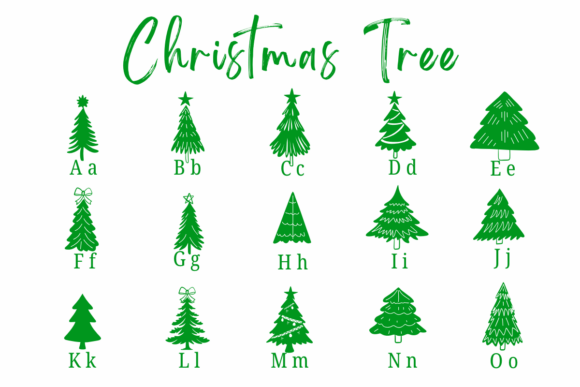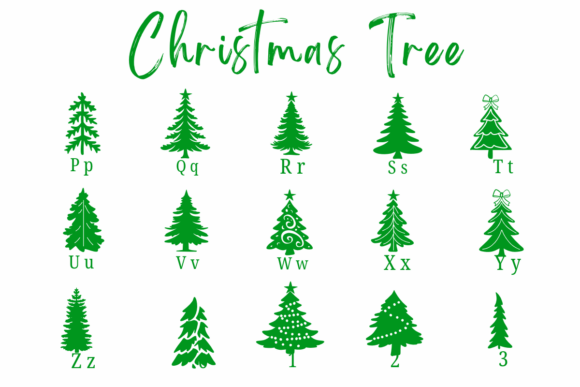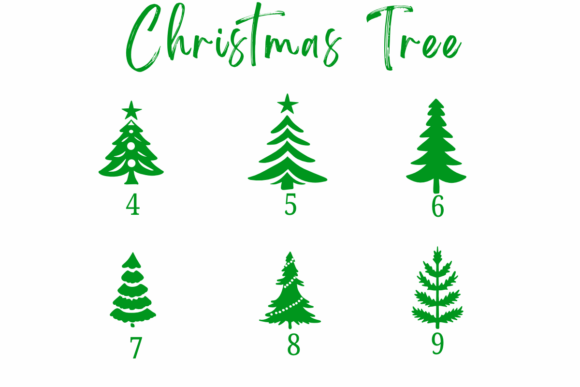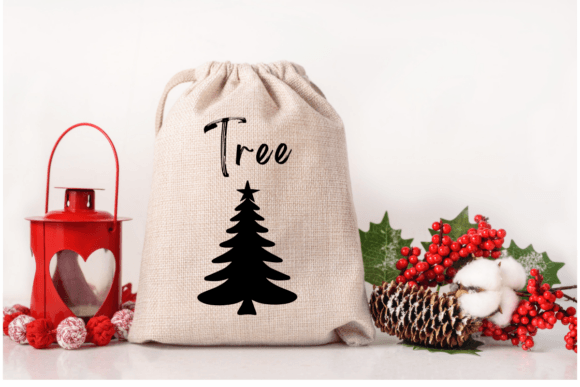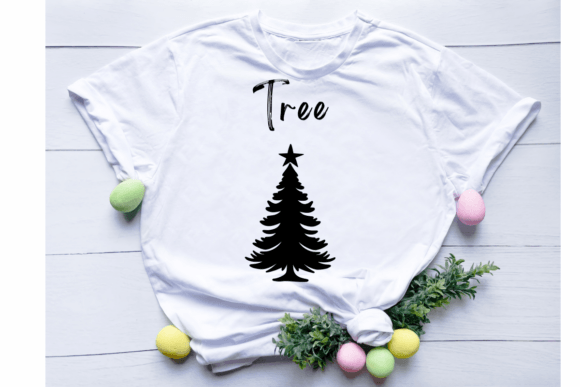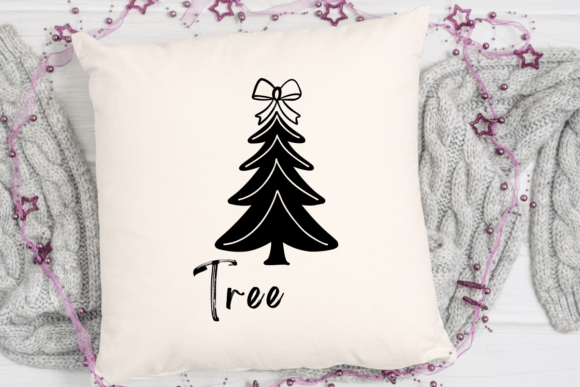
Deck the Halls with Typography: The Magic of Christmas Tree Font
I still remember the first time I stumbled upon a design project that required a festive touch. I was brainstorming ideas for a holiday-themed brochure and wanted to add a whimsical element that would put my readers in the mood for Christmas. That’s when I discovered the charm of Christmas Tree Font – a delightful dingbat font that features adorable symbols of Christmas trees, complete with ornaments and festive details. It was love at first sight!
As a designer, I can attest that Christmas Tree Font is a valuable addition to any typography arsenal. Its cute and decorative symbols allow you to add a holiday touch to your text or designs with ease, making it perfect for projects like greeting cards, social media graphics, or even website headers. With Christmas Tree Font, the possibilities are endless, and the joy is contagious!
Key Features of Christmas Tree Font
- Font Family: Christmas Tree Font is a unique, decorative font that resembles a Christmas tree.
- Unique Characteristics: Features a distinctive, layered design that resembles a Christmas tree, with ornaments and branches that can be customized through various font styles and sizes.
Christmas Tree Font Review
Overall, I think the Christmas Tree Font is a fun and creative addition to any holiday design project. ✨ The font is well-designed and visually appealing, with a clear nod to the classic Christmas tree shape. It’s perfect for adding a touch of festive flair to your designs.
The font is available in a range of weights and styles, which makes it easy to use in different contexts. ✨ The font is also highly customizable, with options for adjusting the size, color, and spacing of the text.
However, there are a few limitations to consider. ⚠️ The font may not be suitable for all types of projects, particularly those that require a more serious or formal tone. Additionally, the font may be a bit too playful for some designers, which could detract from the overall impact of the design.
Here are a few things to keep in mind when using the Christmas Tree Font:
- The font is best used in titles, headings, or other prominent text elements.
- Be mindful of the font size and spacing to avoid overwhelming the design.
- Consider pairing the font with a more traditional or serif font to create a balanced look.
Overall, I think the Christmas Tree Font is a great addition to any designer’s toolkit, but it’s essential to use it thoughtfully and in context.
Tips: Use the Christmas Tree Font for holiday-themed designs, such as Christmas cards, gift tags, and social media graphics.
Tips: Use the Christmas Tree Font for custom holiday designs, such as ornaments, gift wrap, and holiday cards.
Tips: Use the Christmas Tree Font for holiday presentations, reports, and documents.
The Christmas Tree Font is ideal for:
- Holiday-themed designs, such as Christmas cards and gift tags.
- Custom holiday decorations, such as ornaments and gift wrap.
- Holiday presentations and reports.
Remember to experiment with different font sizes, colors, and styles to get the most out of the Christmas Tree Font.
Alternatives to Christmas Tree Font for Designers
Great Vibes Font is a modern script font that can be used for festive and celebratory designs. It’s ideal for creating a fun and playful atmosphere, especially for holiday-themed designs. Great Vibes Font is more elegant and sophisticated compared to Christmas Tree Font, making it suitable for formal and high-end designs.
Pacifico Font is a beautiful and elegant script font that can be used for a variety of designs, including holiday-themed ones. It’s ideal for creating a relaxed and casual atmosphere, making it suitable for designs that require a laid-back feel. Pacifico Font is more refined and sophisticated compared to Christmas Tree Font, making it suitable for high-end designs.